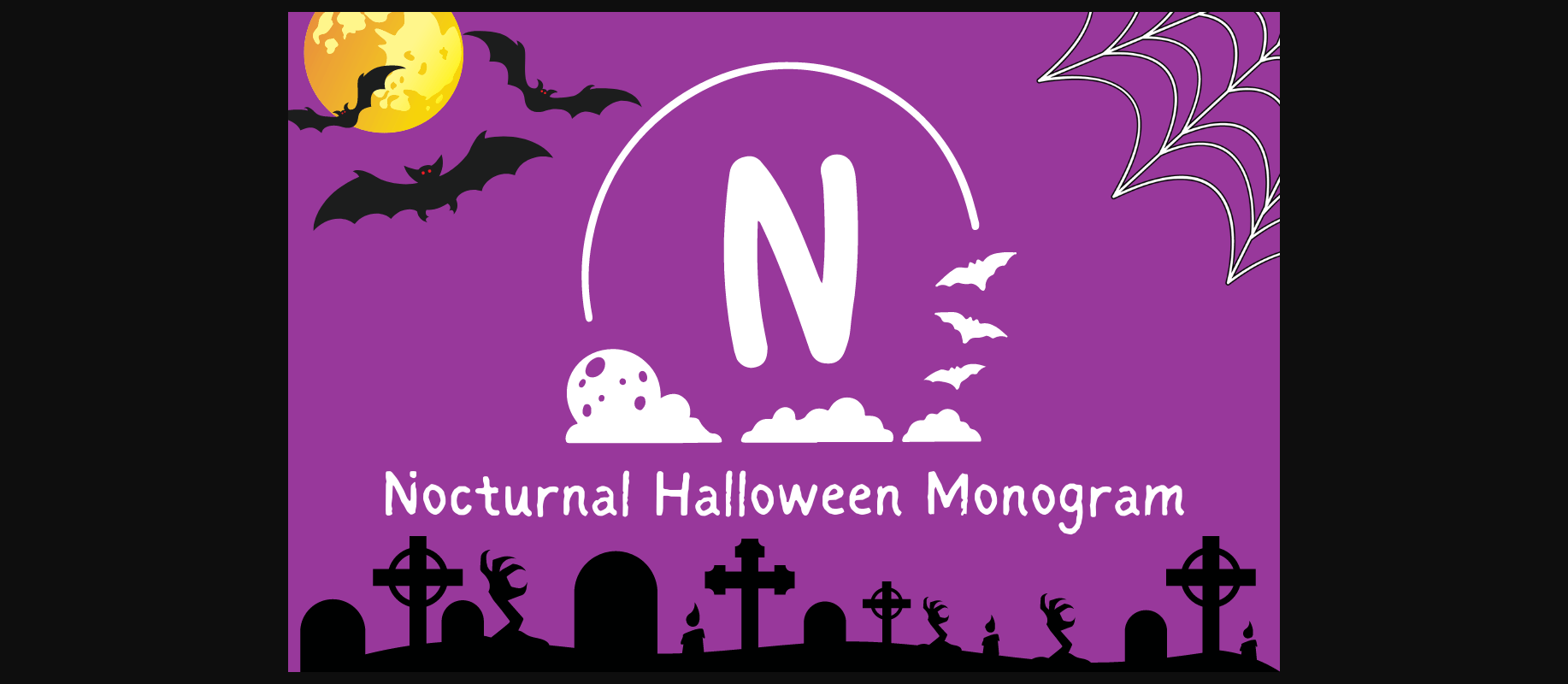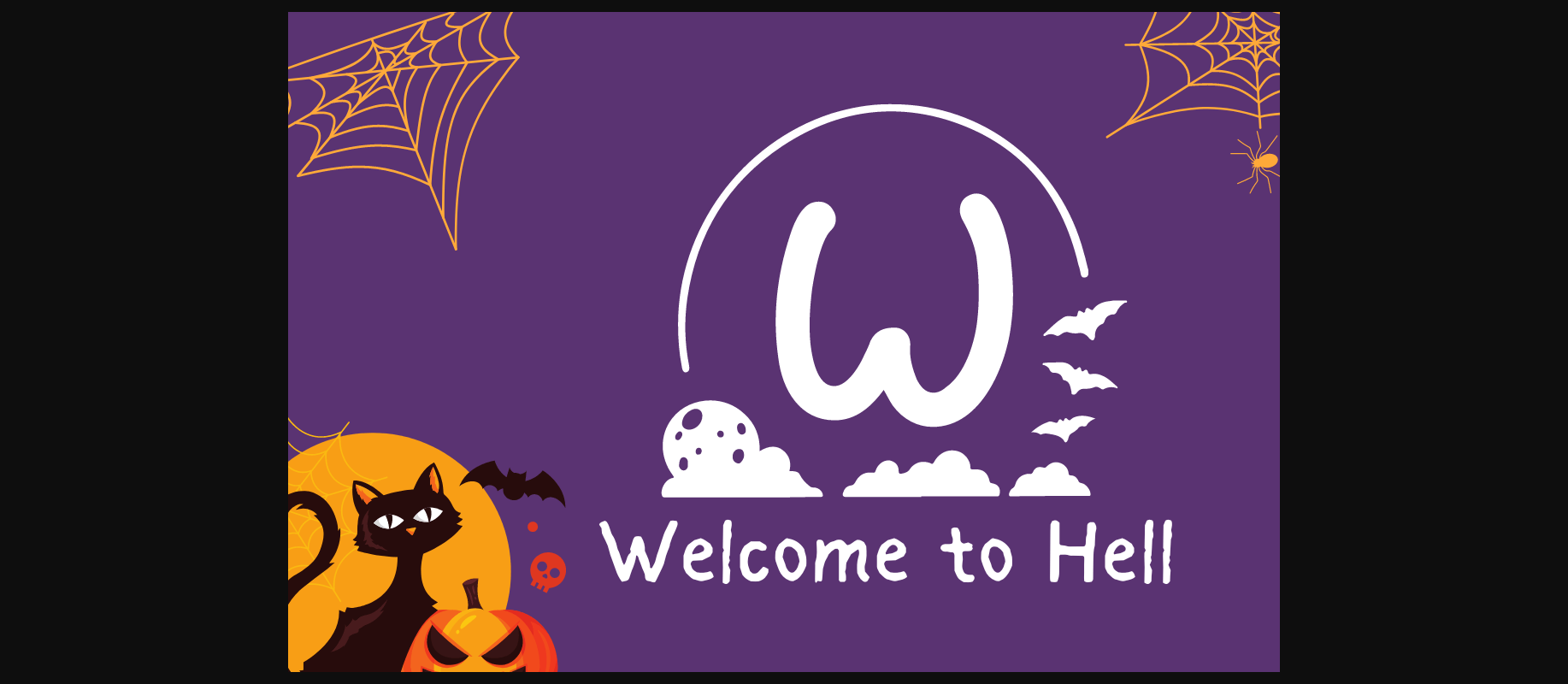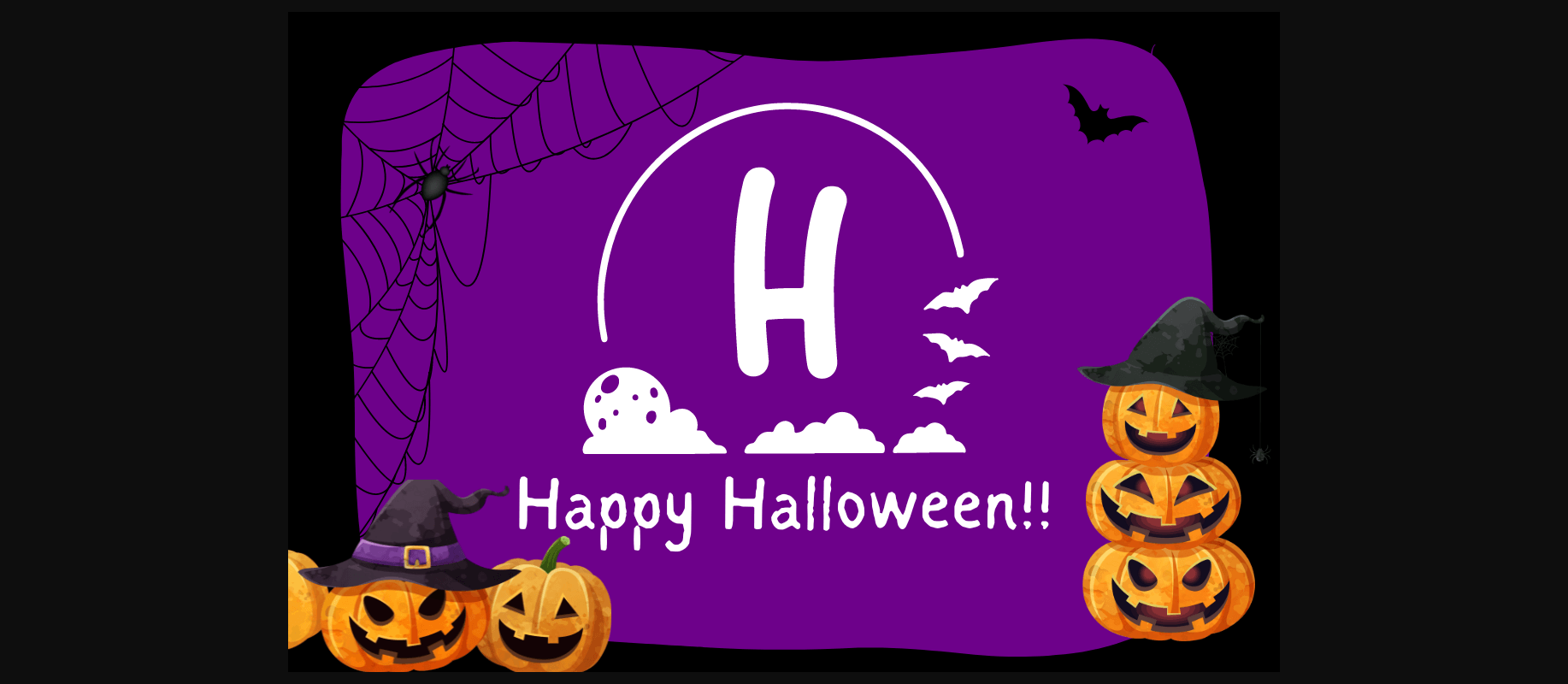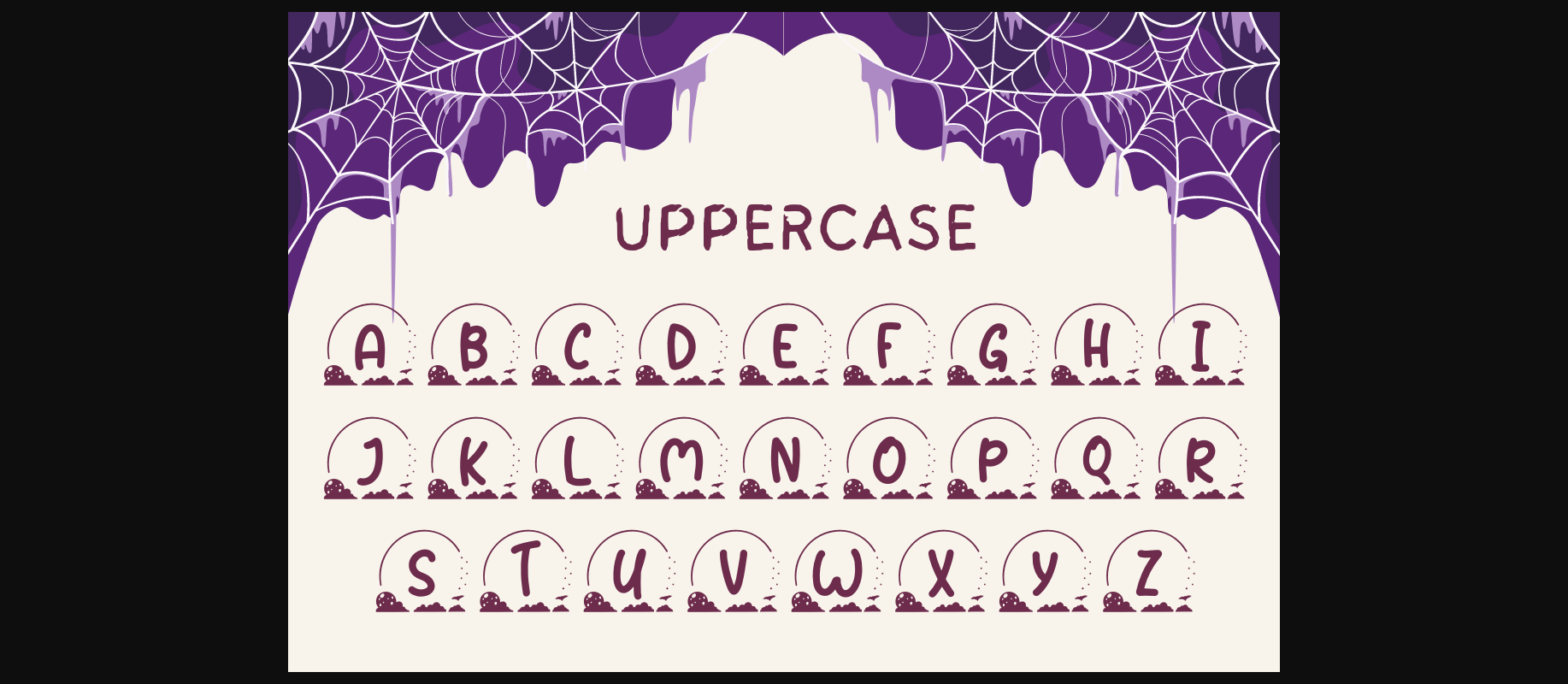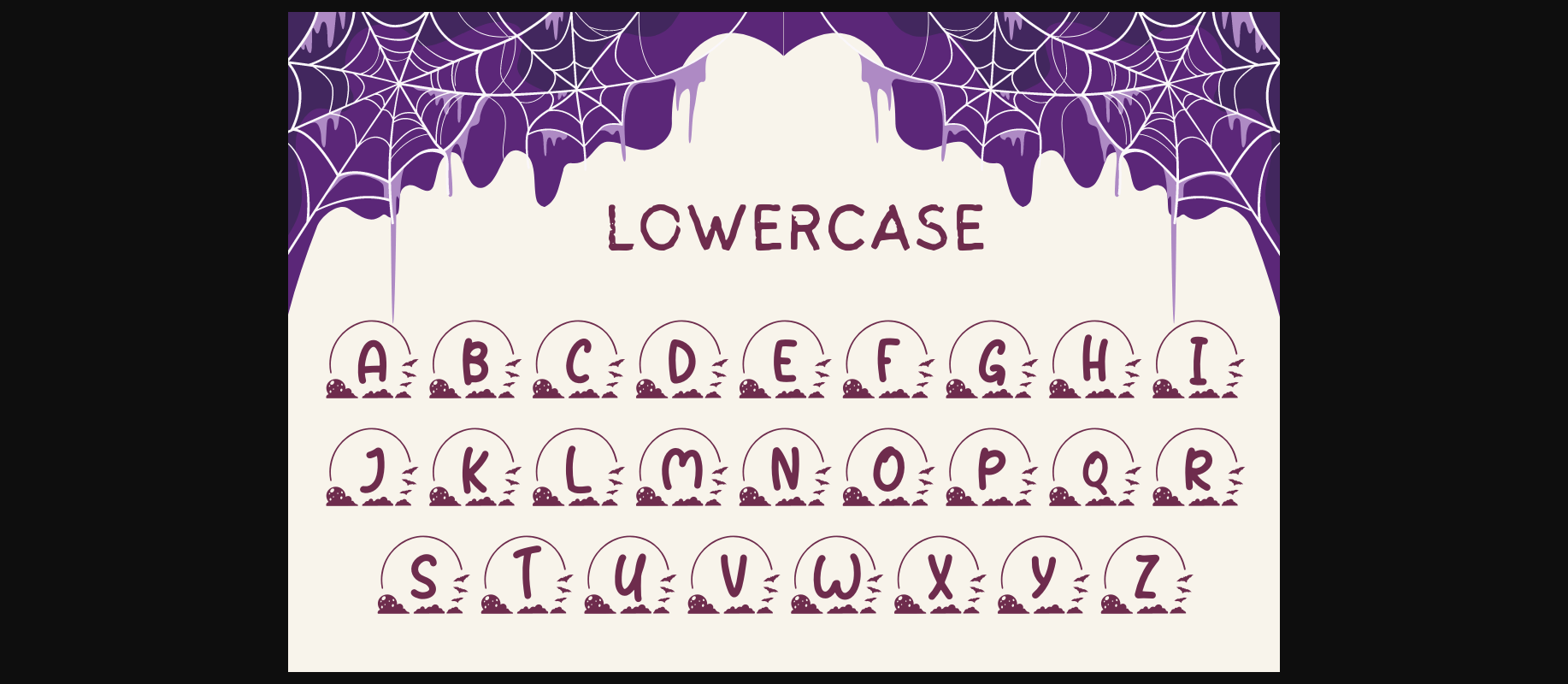
About Nocturnal Halloween Monogram Font
Nocturnal Halloween is a Halloween-themed monogram font, spooky, scary & perfect for your Halloween special occasions, business designs, logos, branding, social media posts, and wedding cards.